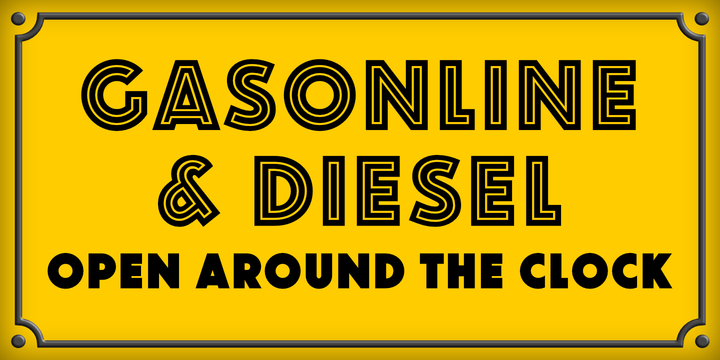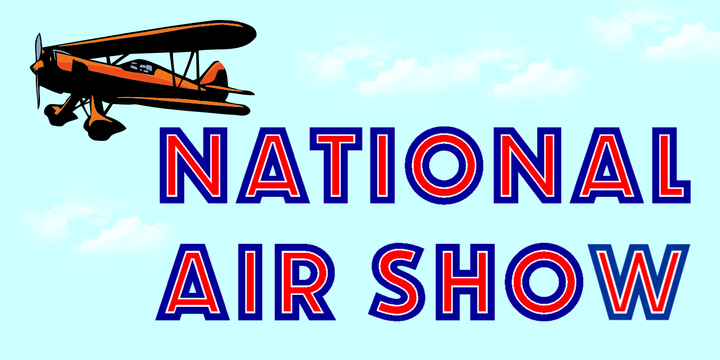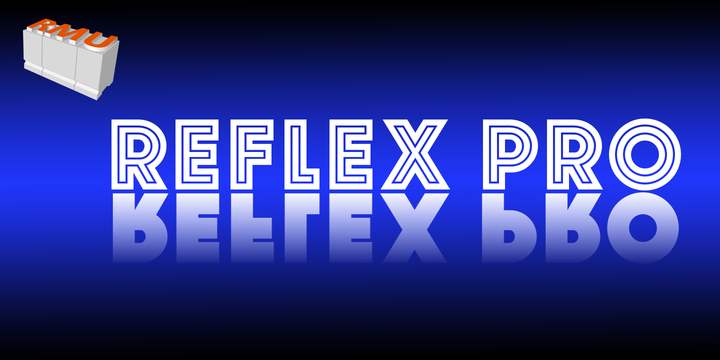
Reflex Pro with its two styles - Regular and Solid - is a great sans serif all-caps font family, ideal for headlines, posters and signboards.
The solid style makes it easy for you to fill the letters with photographs or background patterns.